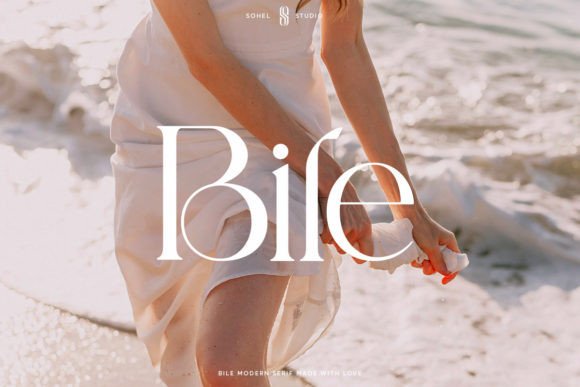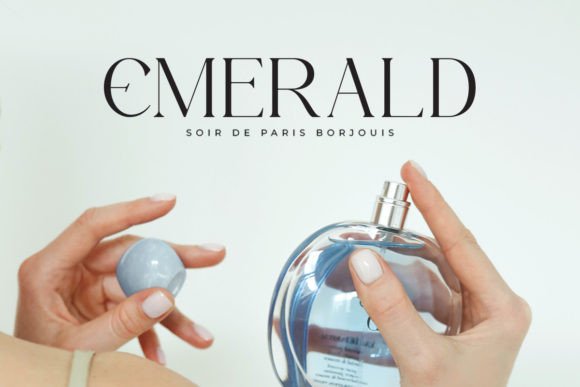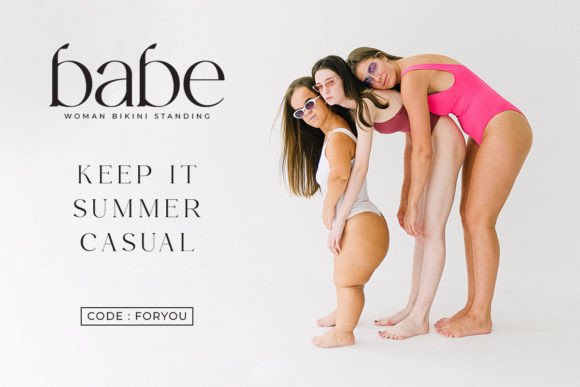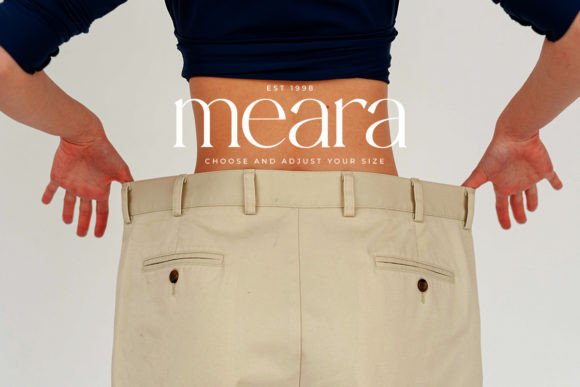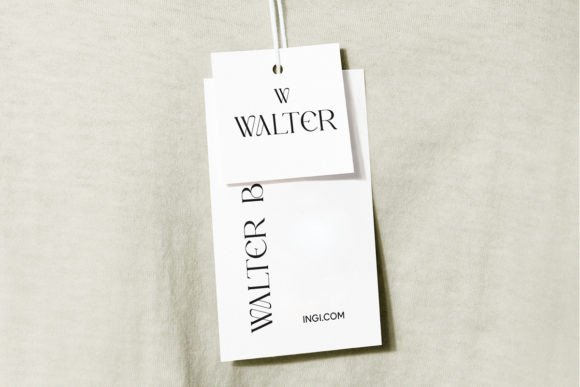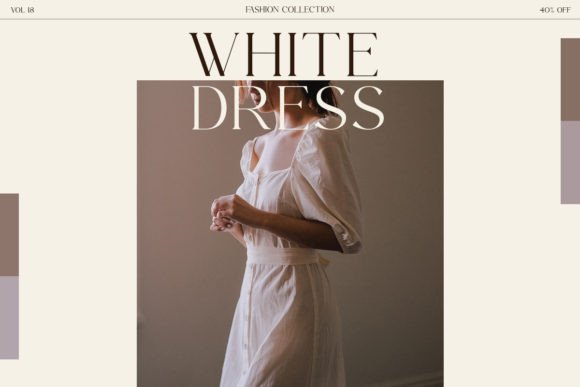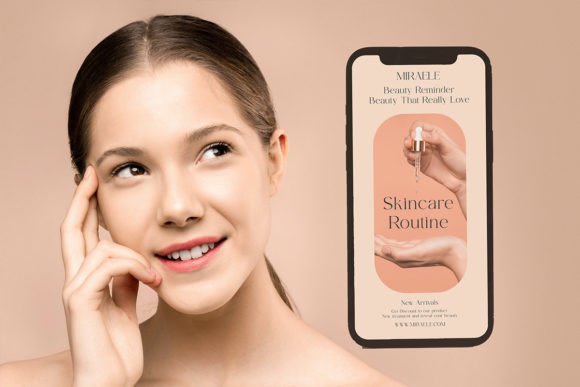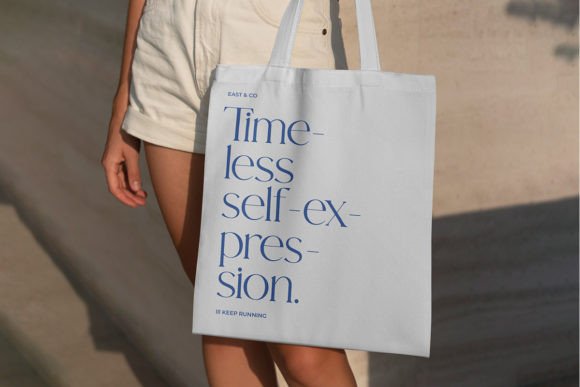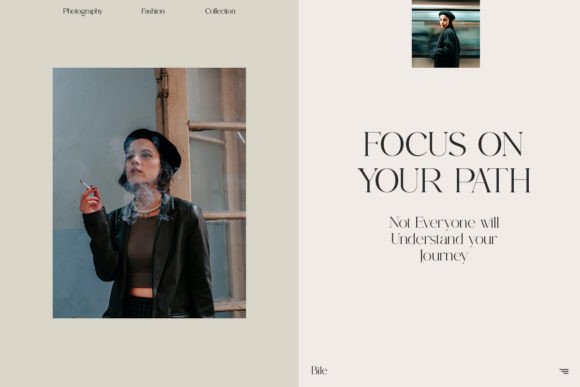
Bile Font
Bile is a classy serif typeface with unique characters and perfect kerning. This typeface is perfect for an elegant & luxurious logo, classy editorial design, women’s magazine, fashion brand, cosmetic brand, fashion promotion, modern advertising design, invitation card, art quote, home decoration, book/cover titles, special events, and much more. This elegant font needs to be in your collection and is perfect for your next luxury design project!